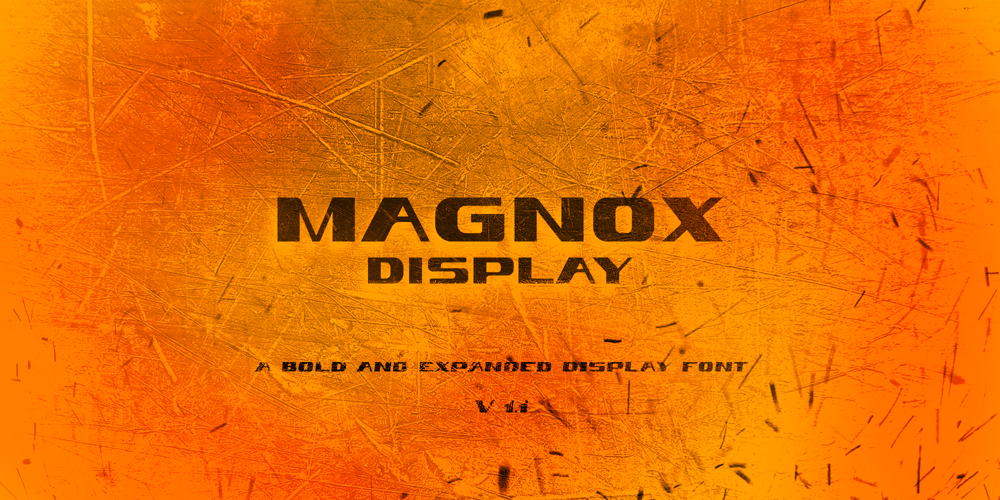
Magnox Display
Magnox Display font
Magnox Display Font Family was designed by Eliezer Grawe and published by Eliezer Grawe. Magnox Display contains 5 styles and family package options. Magnox Display is a family of geometric and expanded display fonts. It brings impact and strength to titles and can be combined with many other sans serif types.It has smallcaps glyphs, alternates and rounded variation and their oblique versions.In 1.1 version you now have a variable version that has two axes: inclination and rounded edges.